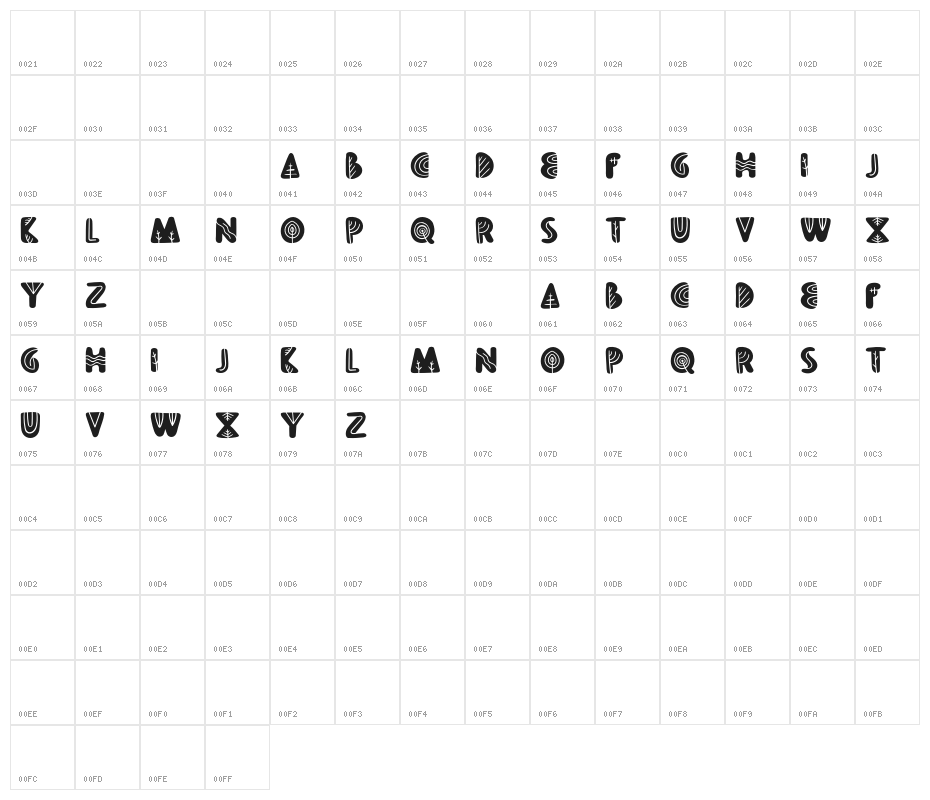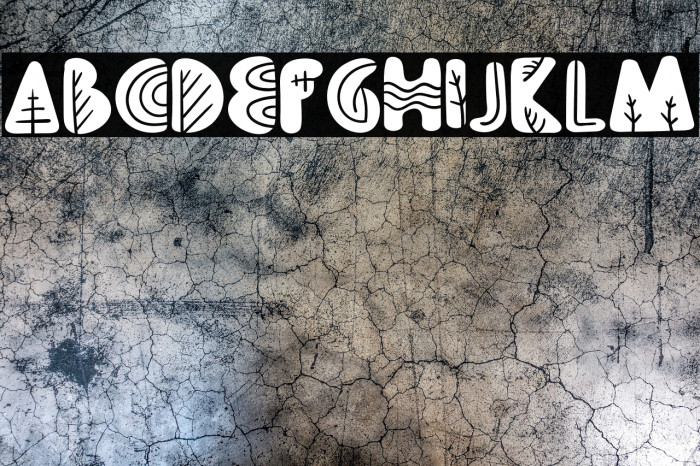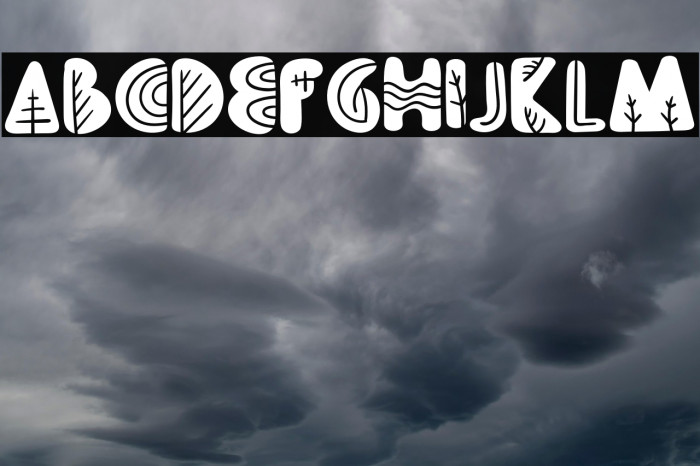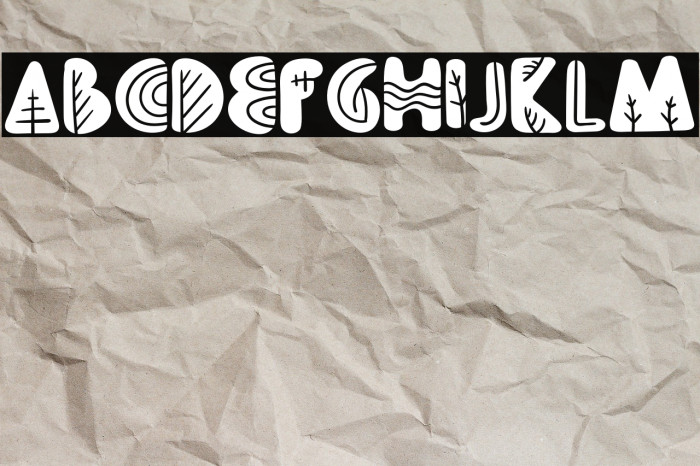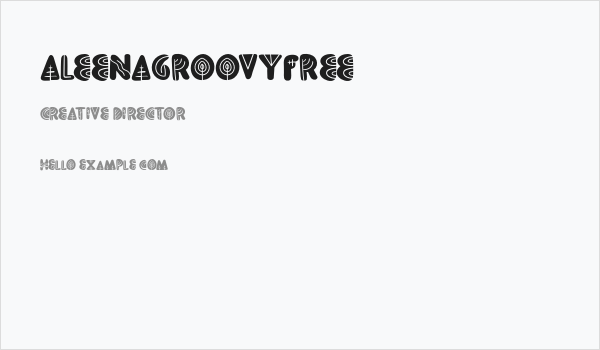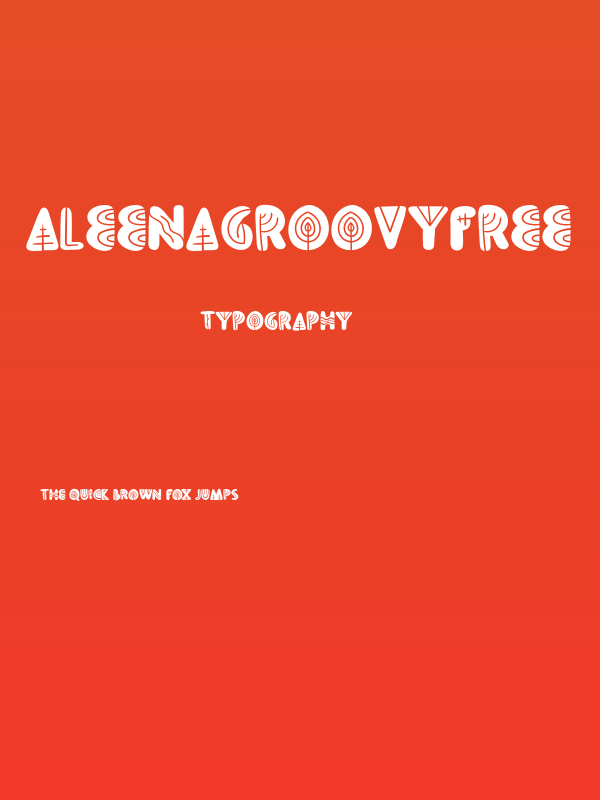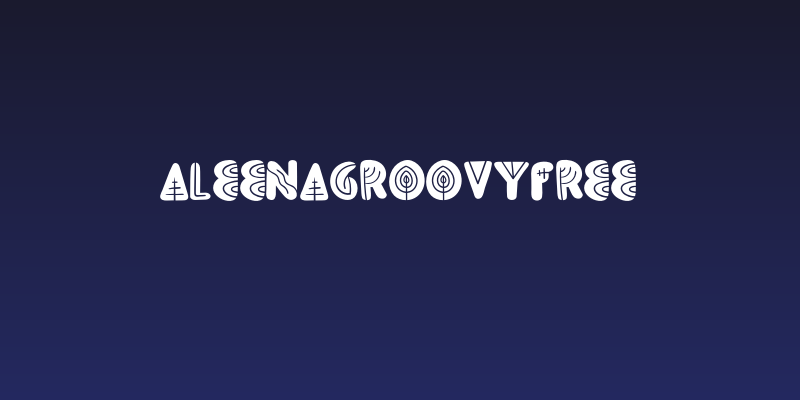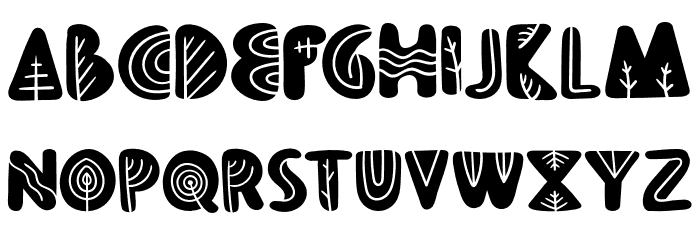
AleenaGroovyFREE Font
AleenaGroovyFREE Description
This font features a bold, playful design with a distinctly decorative style. Each character is filled with unique patterns and shapes, such as stripes, waves, and tree-like motifs, giving it a whimsical and artistic appearance. The letters are uniformly bold, with a consistent thickness that adds to the overall visual impact. The font's style is reminiscent of retro and psychedelic designs, making it ideal for projects that require a fun and eye-catching aesthetic. The characters are well-spaced, ensuring readability despite their intricate designs.
| Overall Style | Retro, Decorative |
| Proposed Projects | Ideal for posters, album covers, children's books, and creative branding projects. |